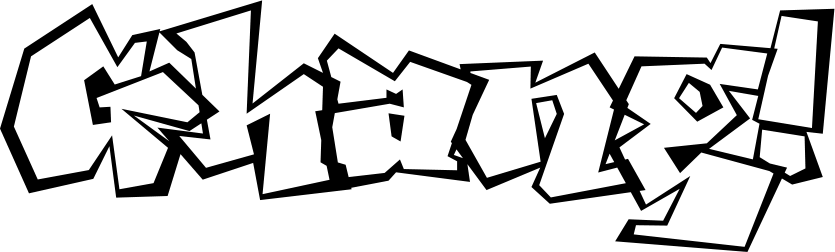
Ghang Font
Ghang font is more like a paper wrinkle, and this fat graffiti font is an excellent choice for those thinking of designing a scrapbook. In this age of graphical artwork, you can complete many postcard designs, stationery…
Ghang font is more like a paper wrinkle, and this fat graffiti font is an excellent choice for those thinking of designing a scrapbook.
In this age of graphical artwork, you can complete many postcard designs, stationery product packaging, and toys with this edgy graffiti font without any worries. Note that if used in small sizes, it will lose readability and look like a few crumpled papers.